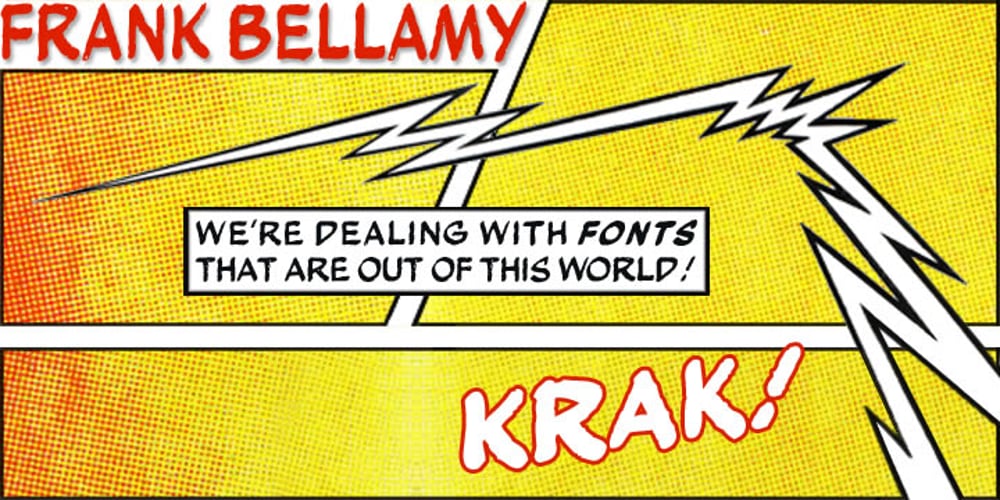
Frank Bellamy Font Family was designed by Keith Bates and published by K-Type. Frank Bellamy contains 4 styles and family package options. An all-capitals family based on the hand lettering of English artist, Frank Bellamy, most famous for his comic art for Eagle and TV21, and his Dr Who illustrations for Radio Times. Most of the scans for this font originate from A Cowboy Story which Bellamy drew for Bert Fegg’s Nasty Book for Boys & Girls by Terry Jones and Michael Palin in 1974. The uppercase characters are the wider and heavier of the scans, and the lowercase are narrower and lighter letters. Four fonts for the price of one – Regular, Bold, Italic and Bold Italic.